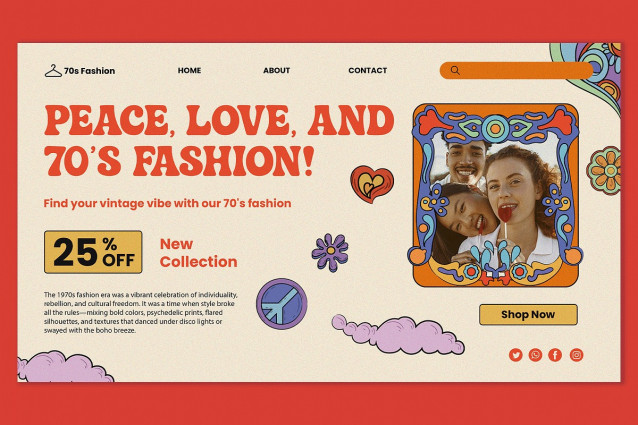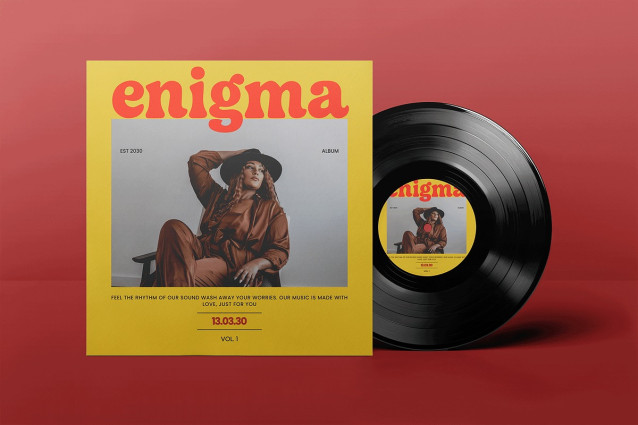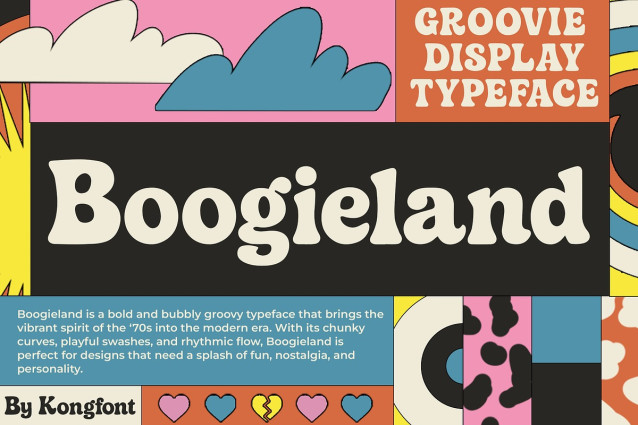
Boogieland Font
Boogieland Font is a groovie display typeface that dances with retro energy and funky flair. Inspired by the bold curves and psychedelic spirit of the ’60s and ’70s, this font bursts with character, making it perfect for music posters, vintage logos, party invites, and bold branding.